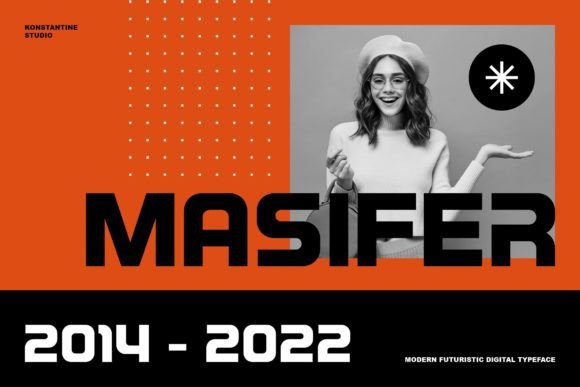
Journey into the realm of rhythm and melody with Masifer Font, the ultimate font for music notation and artistic expression. This futuristic sans serif font, meticulously crafted by konstantinestudio, seamlessly blends the essence of technology with a sporty aesthetic, capturing the dynamic spirit of movement and energy.
Masifer Font's clean lines and sharp angles evoke a sense of precision and modernity, perfectly attuned to the fast-paced world of sports, gaming, and automotive industries. Whether you're designing a striking sports logo, creating immersive game graphics, or crafting a bold brand identity for your automotive company, Masifer Font will elevate your designs to new heights of sophistication.
Unleash your creativity and let Masifer Font ignite your imagination. Dive into the world of poster design, capturing the essence of fast-paced vibes and sporty aesthetics. Bring your fashion streetwear designs to life with Masifer Font, embodying the essence of urban style and contemporary trends.
Masifer Font's versatility extends beyond the realm of digital design. Its captivating charm translates effortlessly into the physical world, making it an ideal choice for creating eye-catching posters, flyers, and brochures. Let Masifer Font amplify your message and leave a lasting impression on your audience.
With Masifer Font, you'll discover a font that not only enhances your designs but also tells a story. Its rhythmic flow and dynamic energy embody the essence of movement and sound, inviting you to explore the depths of your creativity.